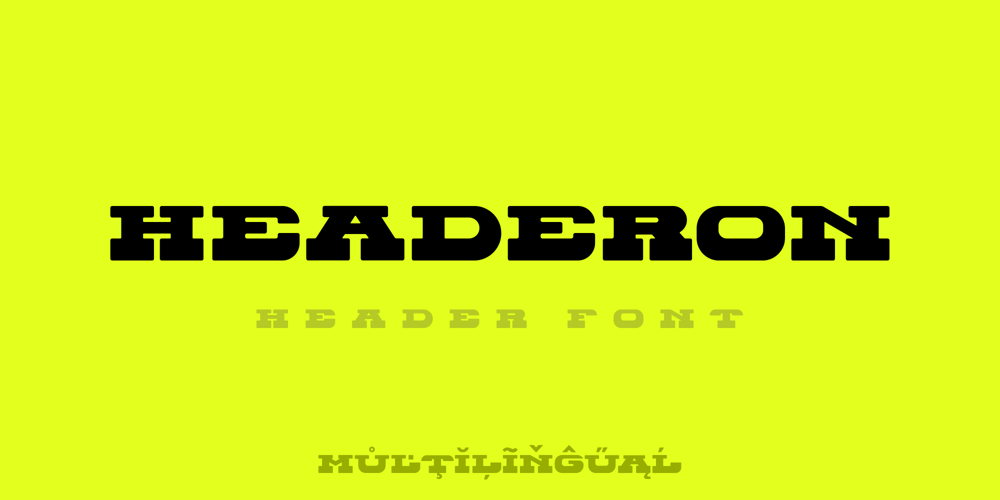
Header ON Font Family was designed by Roland Hüse and published by Sentavio. Header ON contains 1 styles and family package options. Headeron is modern serif all caps font designed for header in such areas as Media & Entertainment, Food & Drinks, Clothes, Music, Games & Applications, etc. with Multilingual support (Latin Extended).It is perfect to use in Magazines & Newspapers Headers Posters Street Signs and other Outdoor Package Design.